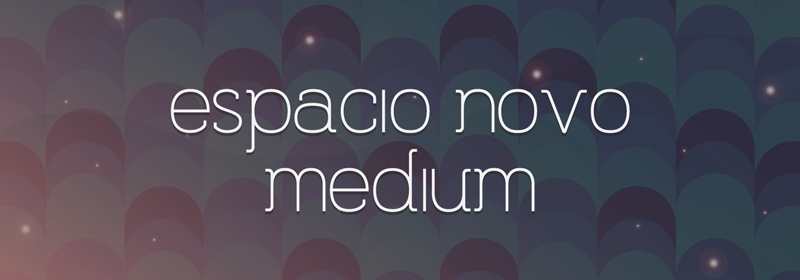
Preview and download Espacio Novo Font. Created by MuraKnockout Media + Design in Basic Serif styles with 100% Free license.
Like us on Facebook and stay updated! http://facebook.com/muraknockout Check out sweet gear that we offer on Society6! http://society6.com/mkmediadesign ----------------------- Espacio Novo is a new premium font with 3 weights. Purchase the font family with all 3 weights for only $9. The complete Medium weight can be downloaded for free! Purchase the complete family on Sellfy: https://sellfy.com/p/8Skl/ Espacio Novo is a re-imagining of one of our earlier fonts. With slight serif accents, lovely lines and curves, and loads of charm, Espacio Novo is a perfect addition to your design arsenal. Check out samples and more on our website: http://muraknockout.com/espacio-novo-font-family/ ----------------------- Check out all of our fonts, free and premium, at: http://muraknockout.com ----------------------- Please DO NOT download this font and redistribute it on another website! For a full licensing agreement please check out: http://muraknockout.com/licensing |